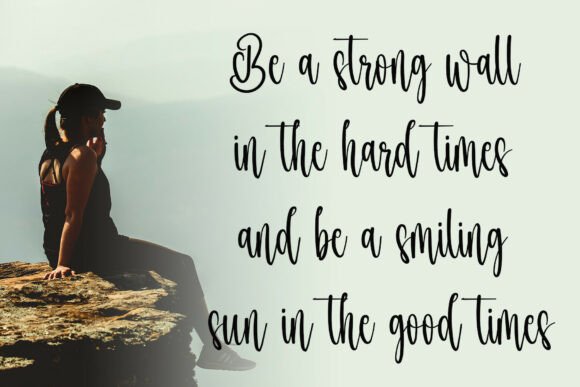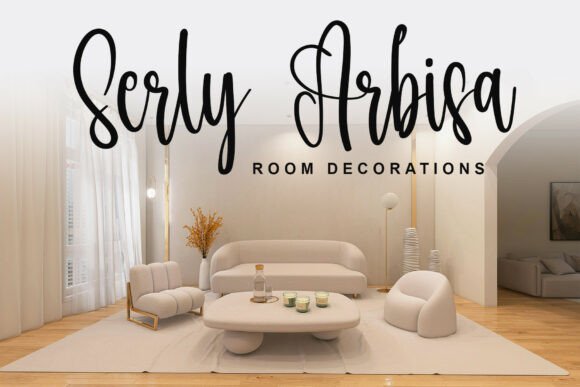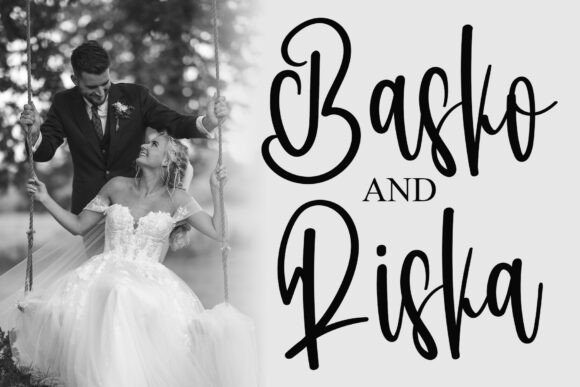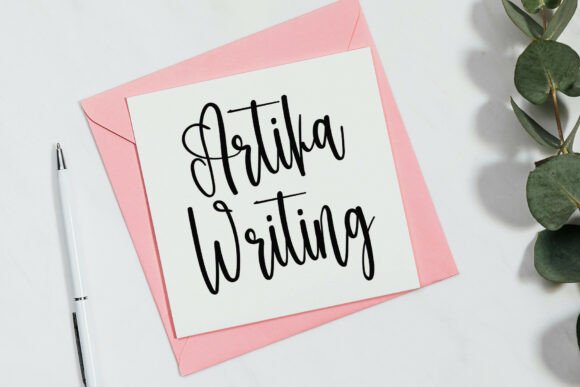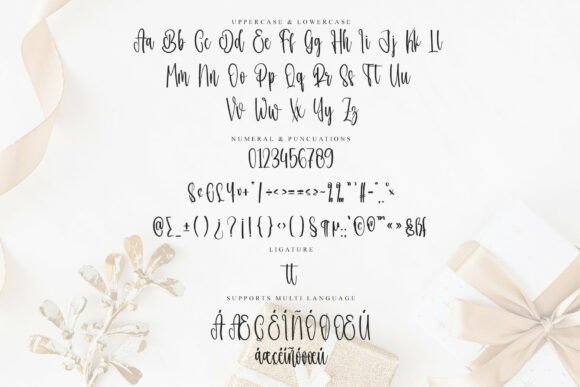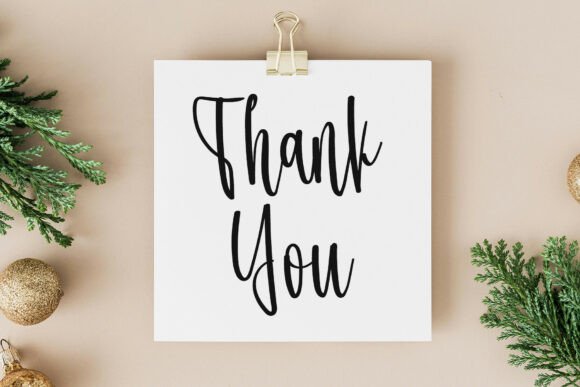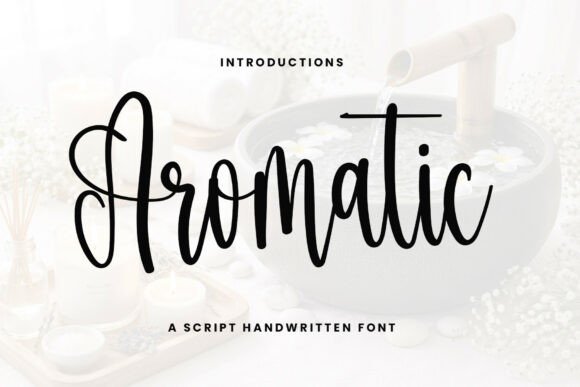
Aromatic Font: Elevate Your Designs with a Sweet and Cursive Touch
In the world of typography, fonts play a crucial role in conveying the tone and personality of a design. If you’re looking for a font that exudes elegance, romance, and joy, look no further than Aromatic Font. This beautiful, handwritten font is perfect for designers and crafters seeking to add a touch of sophistication and whimsy to their projects.
What is Aromatic Font?
Aromatic Font is a sweet and cursive handwritten font that is designed to bring a sense of warmth and personality to your designs. Its gentle, flowing lines and delicate curves make it an ideal choice for a wide range of projects, from branding and logos to wedding invitations and greeting cards.
Key Features of Aromatic Font
• Sweet and Cursive Handwritten Style: Aromatic Font boasts a beautiful, handwritten style that is both elegant and approachable.
• Versatile and Adaptable: This font is perfect for a variety of design ideas, from fashion and beauty to wedding and lifestyle projects.
• Joysful and Romantic Touch: Aromatic Font adds a playful and romantic touch to each of your projects, making it ideal for designers seeking to create an emotional connection with their audience.
• Perfect for Branding and Marketing: With its elegant and sophisticated style, Aromatic Font is perfect for branding, logos, and marketing promotions.
Use Cases for Aromatic Font
Aromatic Font is a versatile font that can be used in a wide range of design projects, including:
• Branding and Logos: Create a lasting impression with a custom logo or brand identity that showcases your personality and style.
• Wedding Invitations and Stationery: Add a touch of romance and elegance to your wedding invitations, save-the-dates, and other stationery.
• Greeting Cards and Gift Tags: Create beautiful and personalized greeting cards and gift tags for special occasions.
• Fashion and Beauty: Use Aromatic Font to create stunning lookbooks, marketing materials, and social media graphics for fashion and beauty brands.
• Marketing Promotions: Elevate your marketing promotions with a sophisticated and eye-catching font that grabs attention.
Why Choose Aromatic Font?
With so many fonts available, why choose Aromatic Font? Here are just a few reasons why designers and crafters love this beautiful font:
• Unique and Eye-Catching: Aromatic Font stands out from the crowd with its distinctive and elegant style.
• Easy to Read: Despite its cursive style, Aromatic Font is easy to read and understand, making it perfect for body text and headlines.
• Customizable: Aromatic Font can be customized to fit your brand’s personality and style, making it a versatile choice for designers.
In conclusion, Aromatic Font is a beautiful and versatile font that is perfect for designers and crafters seeking to add a touch of elegance and romance to their projects. With its sweet and cursive handwritten style, joyful and romantic touch, and versatility, Aromatic Font is an excellent choice for a wide range of design ideas. Whether you’re creating branding materials, wedding invitations, or marketing promotions, Aromatic Font is sure to elevate your designs and leave a lasting impression.